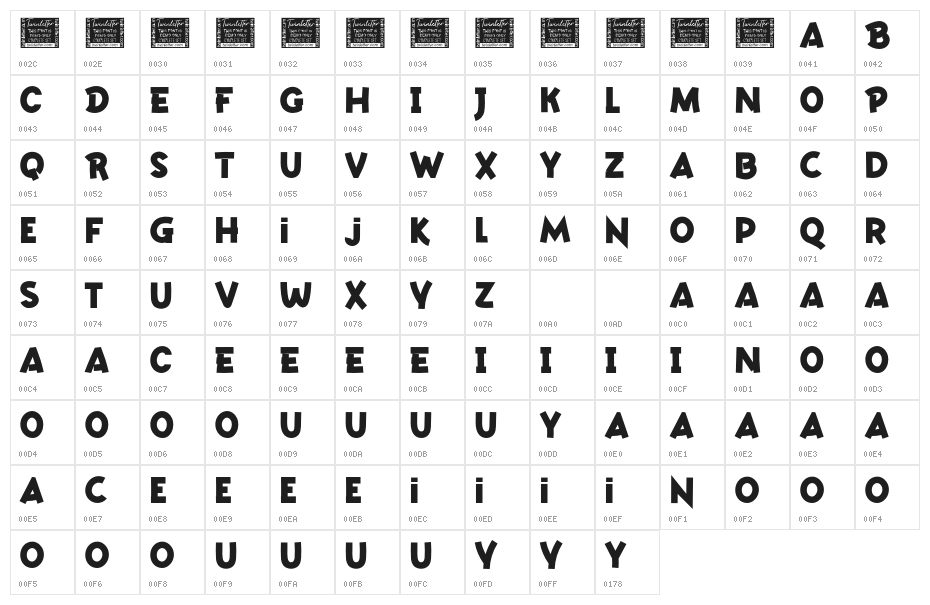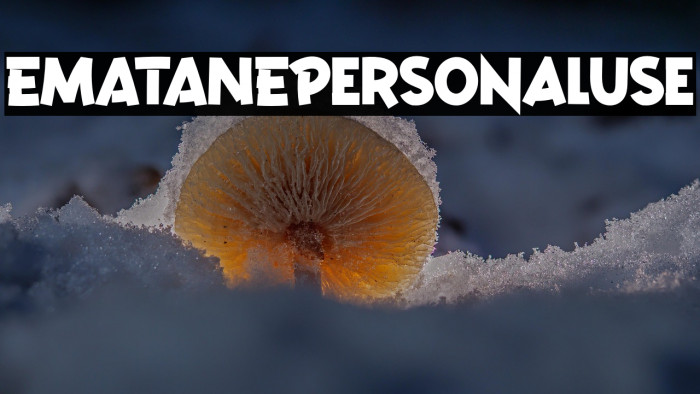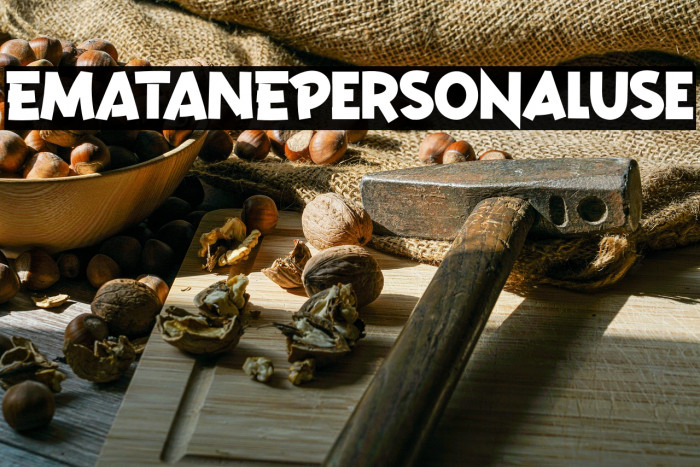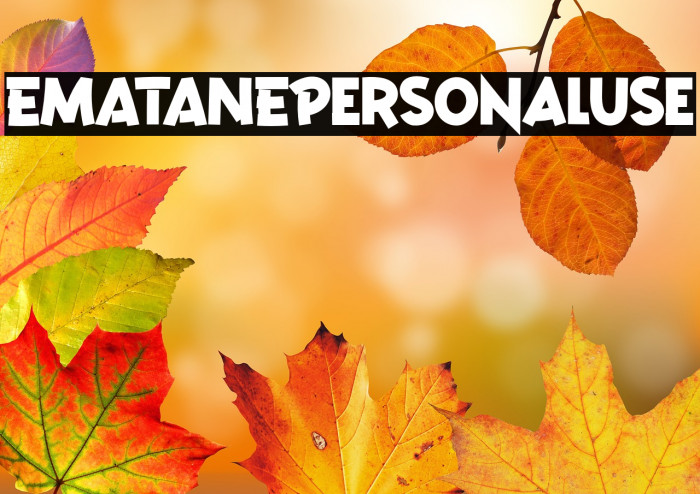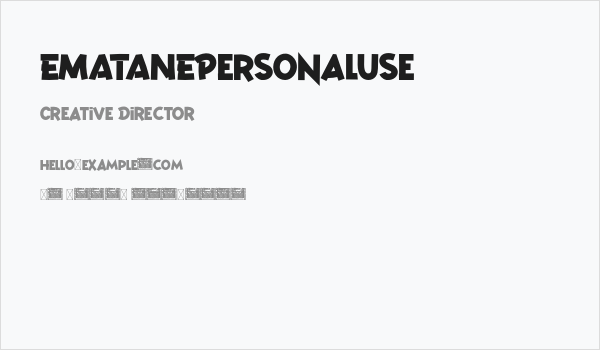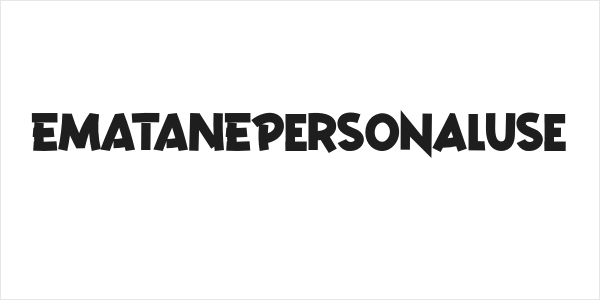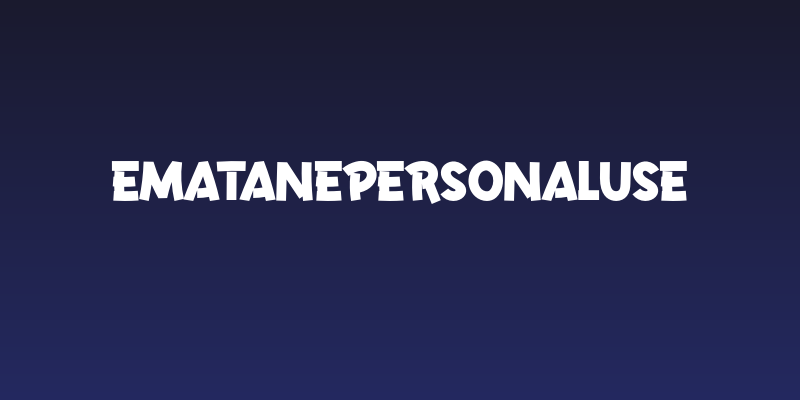
EMATANEPersonalUse Font
EMATANEPersonalUse Description
This font features a bold and playful style with exaggerated, uneven strokes that give it a dynamic and energetic appearance. The uppercase letters are particularly striking, with a slightly irregular form that adds to the whimsical feel. The lowercase letters maintain the same playful aesthetic, ensuring consistency throughout the typeface. The numbers and special characters are designed to match the overall style, making them suitable for a variety of creative applications. The font's unique character makes it ideal for projects that require a fun and engaging visual impact.
| Overall Style | Playful, Energetic, Whimsical |
| Use Case | Headlines, Posters, Branding |
| Proposed Projects | Ideal for children's books, comic strips, playful branding, and event posters. |